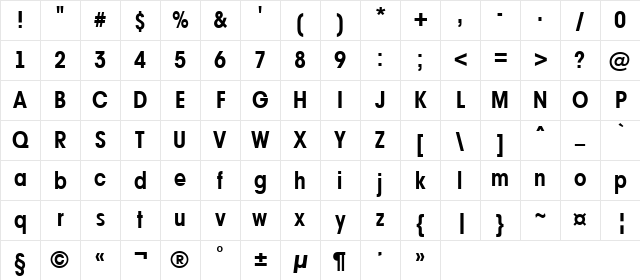
a_AvanteBsNr Bold Free Font
a_AvanteBsNr Bold
Design Context for a_AvanteBsNr
a_AvanteBsNr is a composed and adaptable typeface that performs quietly and consistently across a wide range of design contexts. Its bold stroke weight gives it real presence on the page.